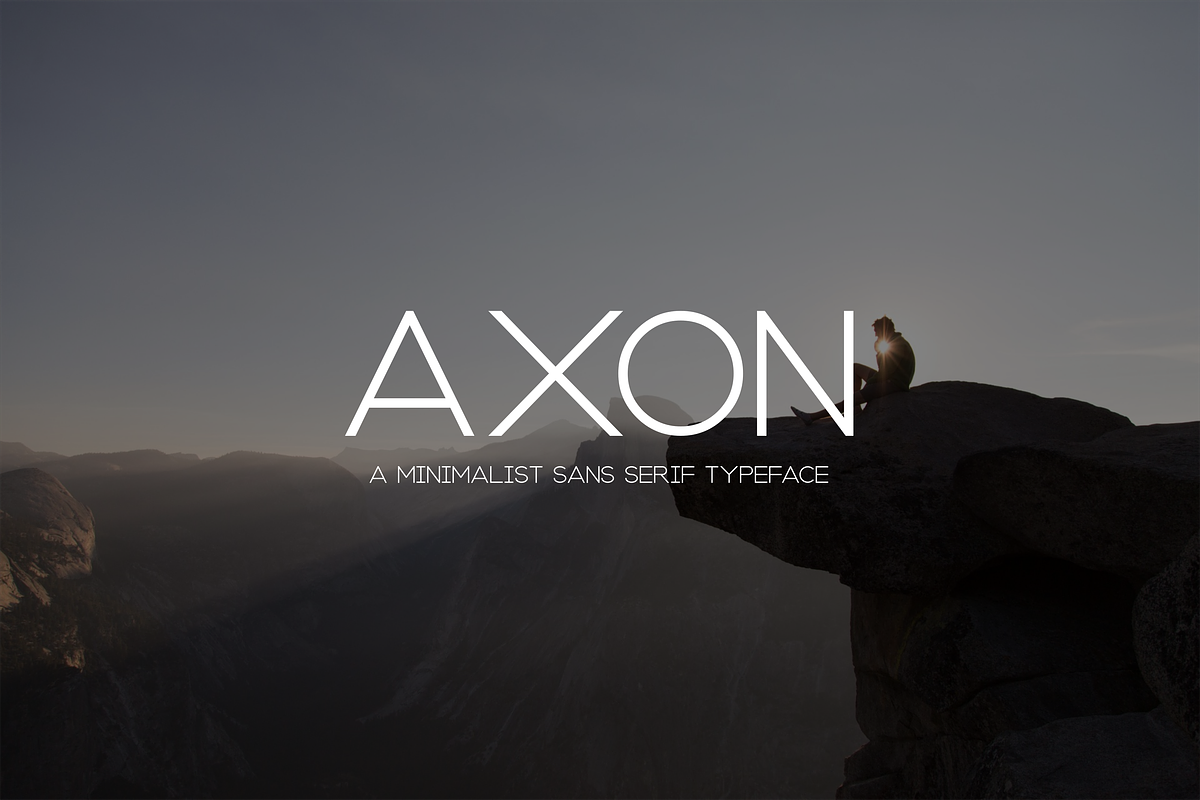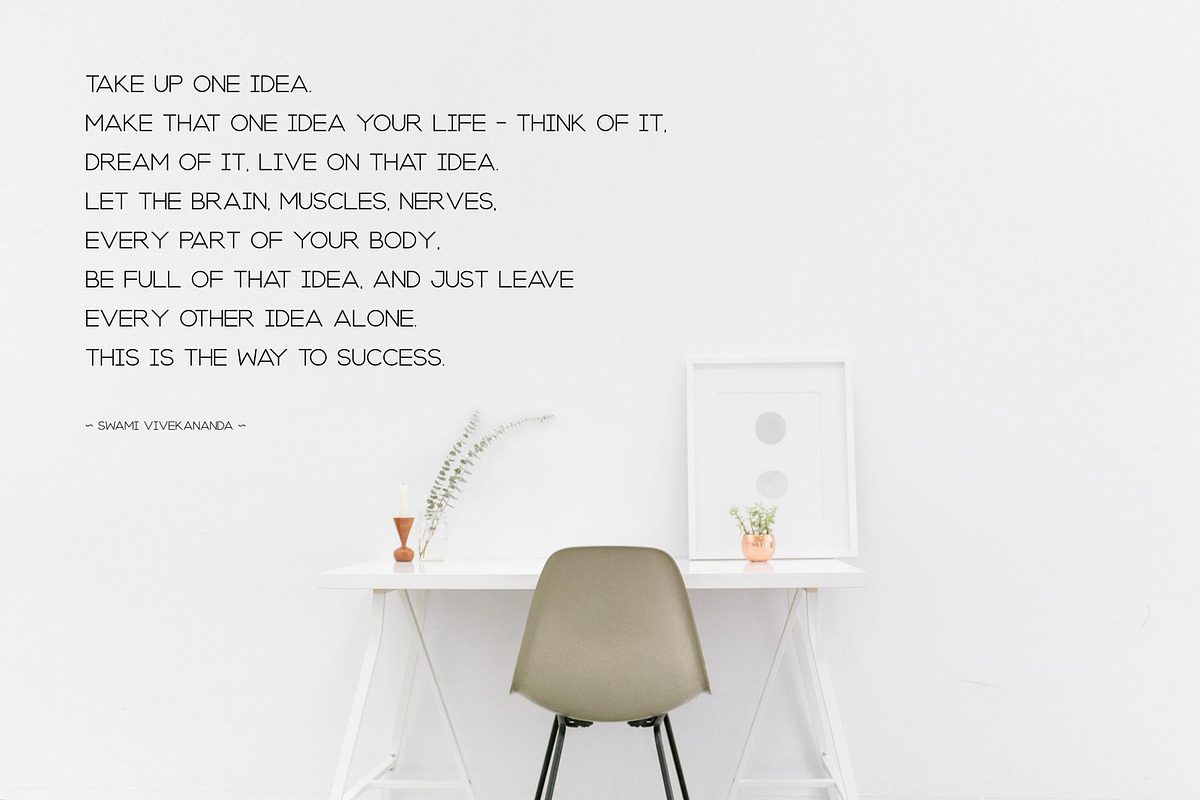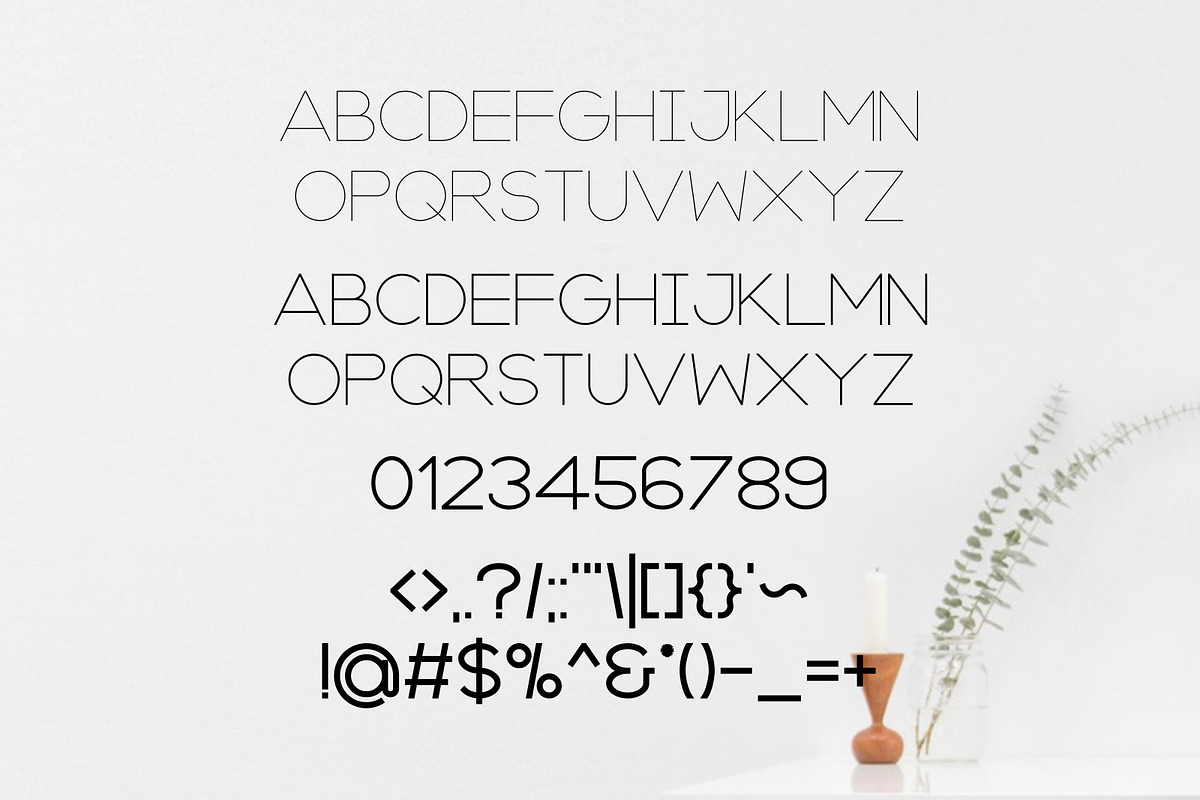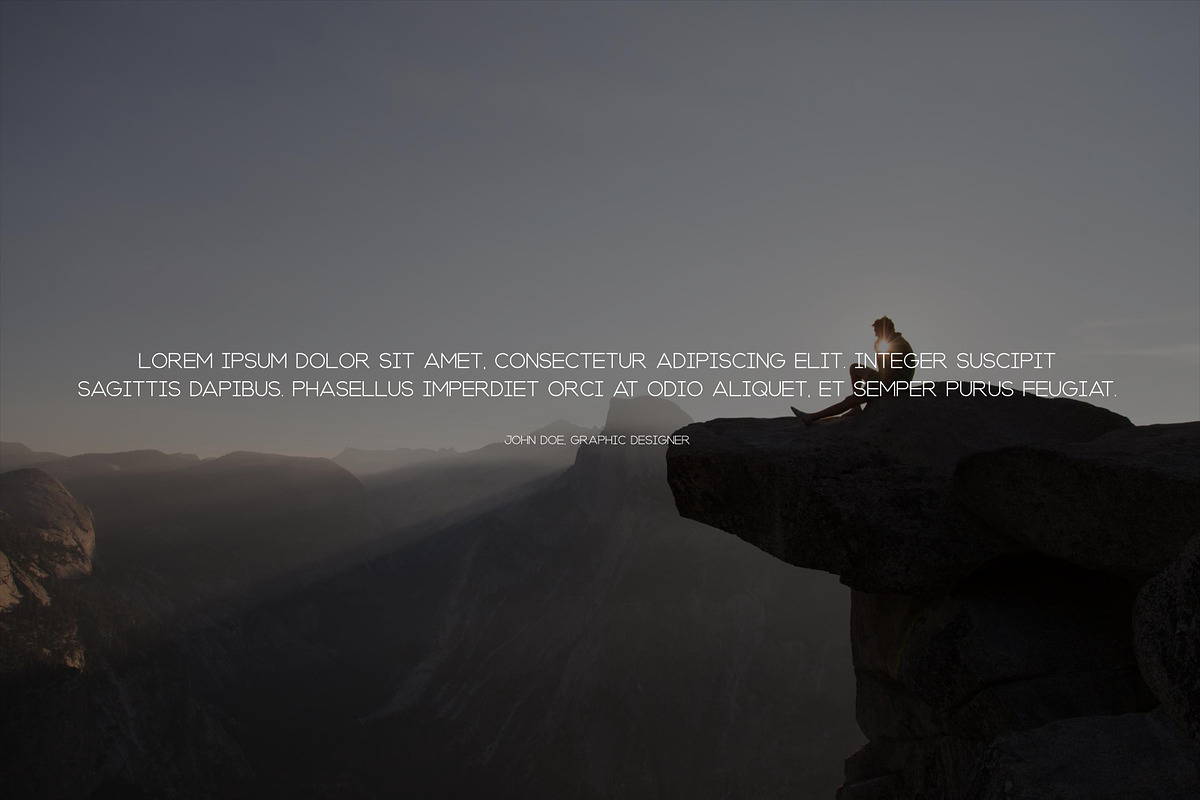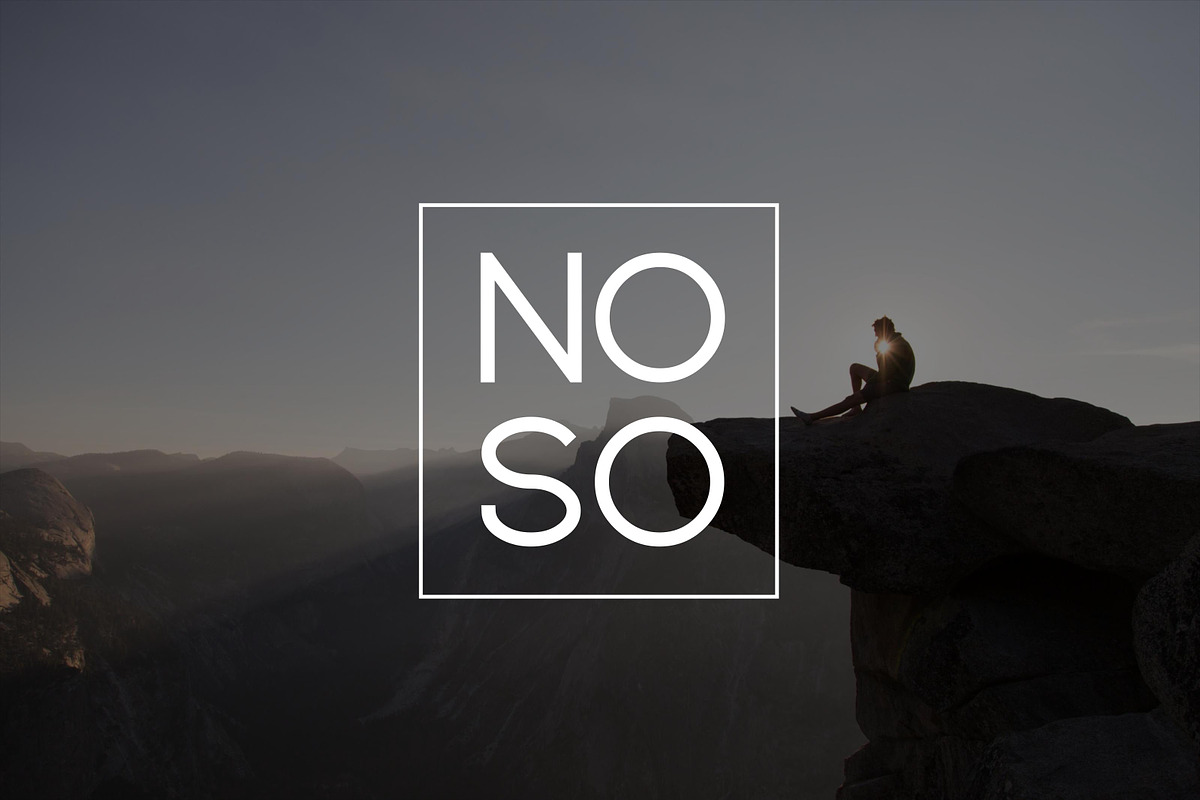
Axon | Minimalist Sans Serif Family
Introducing Axon Family! - A minimalist and awesome character! With three different weights, it's perfect for magazine layouts, invitations, headers, or even large-scale artwork.